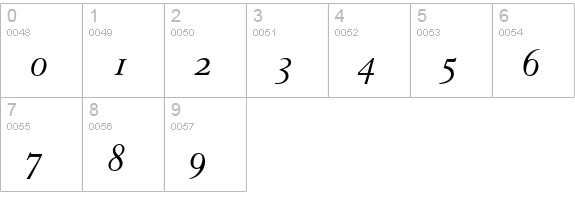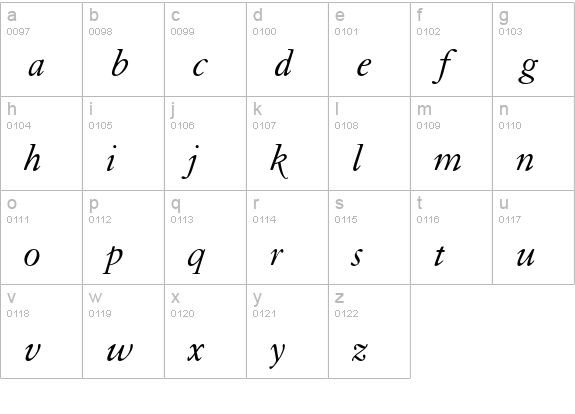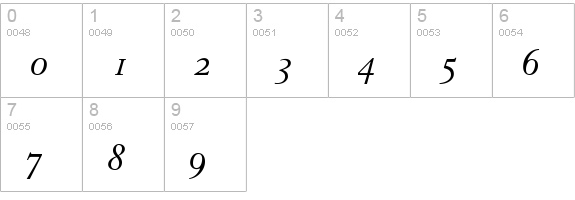
Granjon Italic Old Style Figures Font Details
Granjon Italic Old Style Figures is a distinctive, italic variant in the Granjon typeface family \xE2\x80\x94 well suited to design and typography projects.
Granjon Italic Old Style Figures font is a timeless and elegant typeface that exudes sophistication and charm. With its graceful curves and delicate serifs, this font is ideal for adding a touch of class to any project, whether it be a formal invitation, a stylish logo, or a refined publication. The Old Style Figures add a classic flair to the font, making it perfect for creating a vintage-inspired look with a modern twist. The slanted italics give the text a sense of movement and dynamism, making it both visually interesting and easy to read. Best of all, Granjon Italic Old Style Figures font is available for free download at FontsMarket.com, allowing you to access this beautiful typeface without any cost. Whether you are a designer looking to enhance your projects or a typophile seeking a new favorite font, Granjon Italic Old Style Figures is sure to impress with its timeless appeal and versatility.